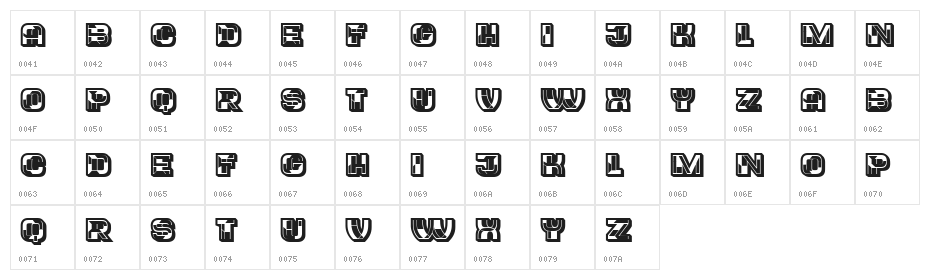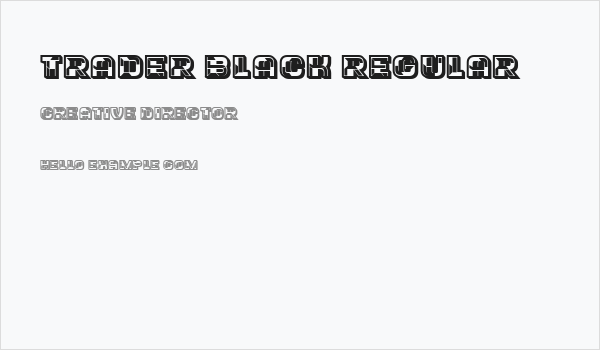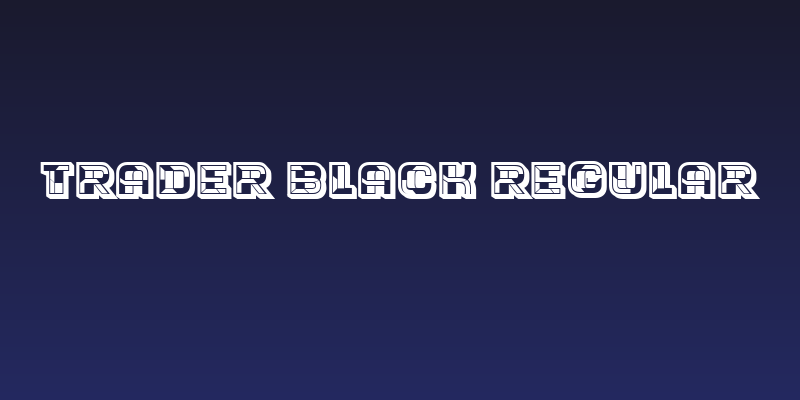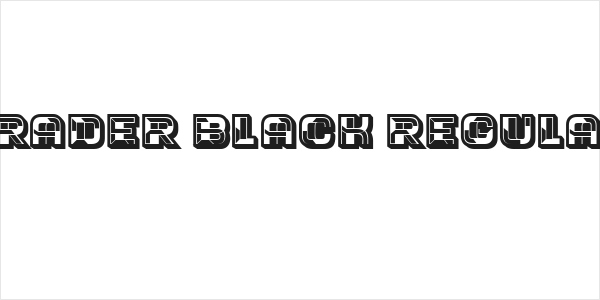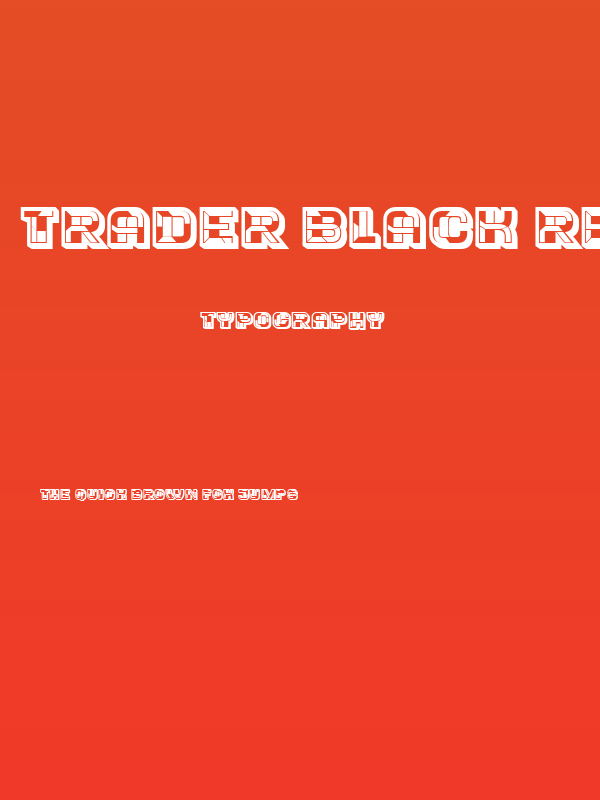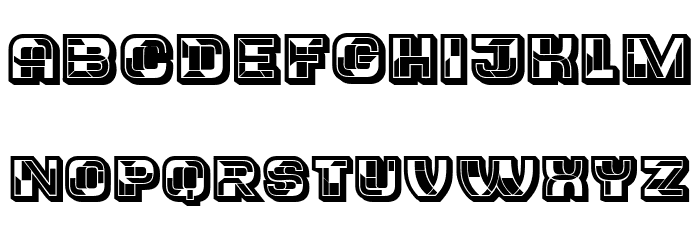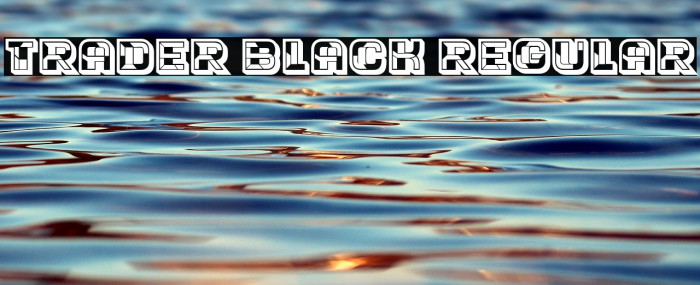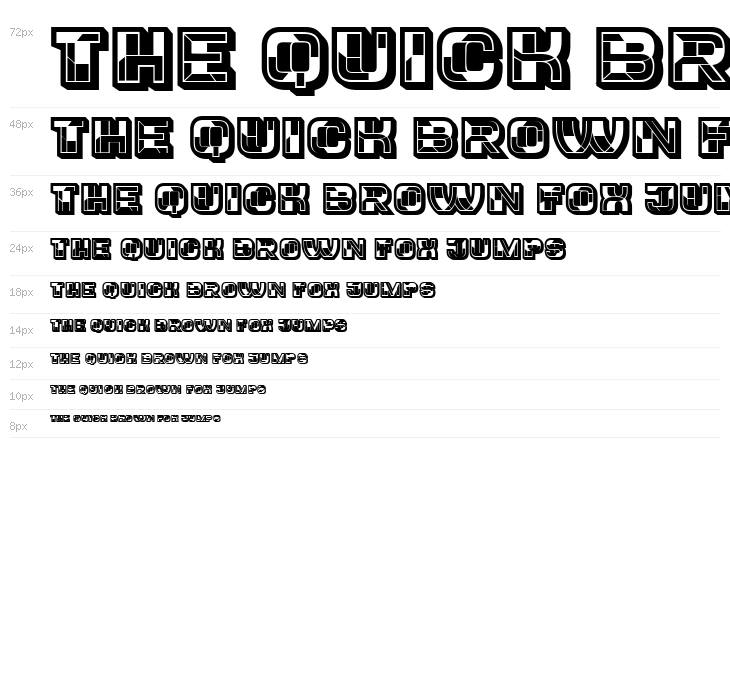
Trader Black Regular Font
Trader Black Regular Description
This font features a bold, geometric style with a distinct three-dimensional effect. The letters are constructed with thick, block-like forms that create a sense of depth and structure. The design incorporates sharp angles and clean lines, giving it a modern and industrial feel. The characters are outlined with a contrasting stroke, enhancing their visibility and adding to the overall impact. This font is highly stylized, making it suitable for attention-grabbing headlines and display purposes.
| Proposed Projects | Ideal for branding, posters, and signage where a strong visual impact is needed. |